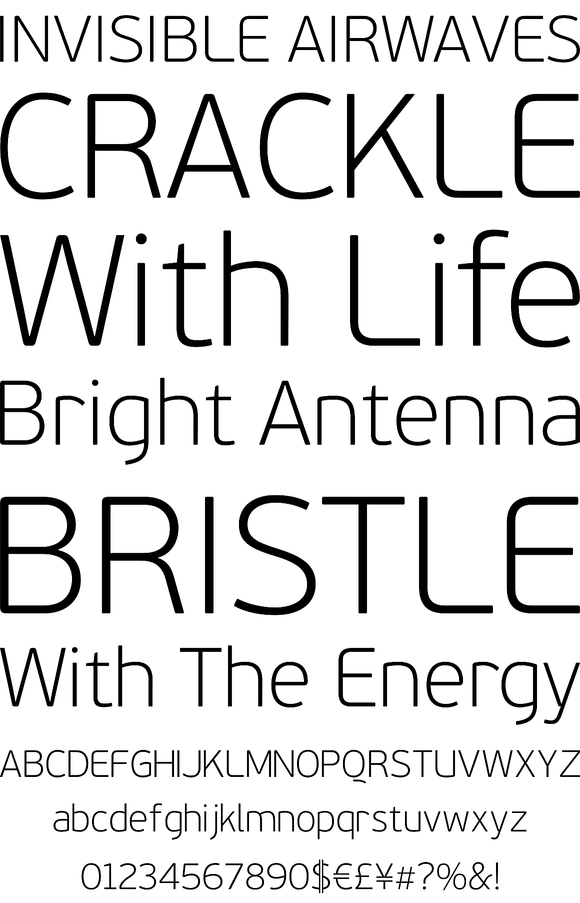
The design of Beau Sans was inspired by Bernhard Gothic which is considered one of the first contemporary American sans serifs and was designed by Lucian Bernhard in the late 1920's.
Foundry: Parachute
The design of Beau Sans was inspired by Bernhard Gothic which is considered one of the first contemporary American sans serifs and was designed by Lucian Bernhard in the late 1920's. The designer came across this font while attempting to reduce the design elements of a text typeface, by introducing Bauhaus-like minimal forms to the characters. The first version was completed back in 2002 and introduced one year later in our 3rd catalog, under the name PF Traffic. Some time later it was decided to make a few improvements but the project was so carried away that the new typeface which emerged needed urgently a new name. Beau Sans Pro is a modern sans serif family of 16 fonts which includes true-italics. Just like all other Parachute fonts, it covers a broad range of languages by incorporating 3 major scripts i.e. Latin, Greek and Cyrillic in one font. Furthermore, every font in this family has been completed with 270 copyright-free symbols, some of which have been proposed by several international organizations for packaging, public areas, environment, transportation, computers, fabric care and urban life. This typeface is totally recommended for titles and/or body text when you want to give a distinct and contemporary identity to a product or service.